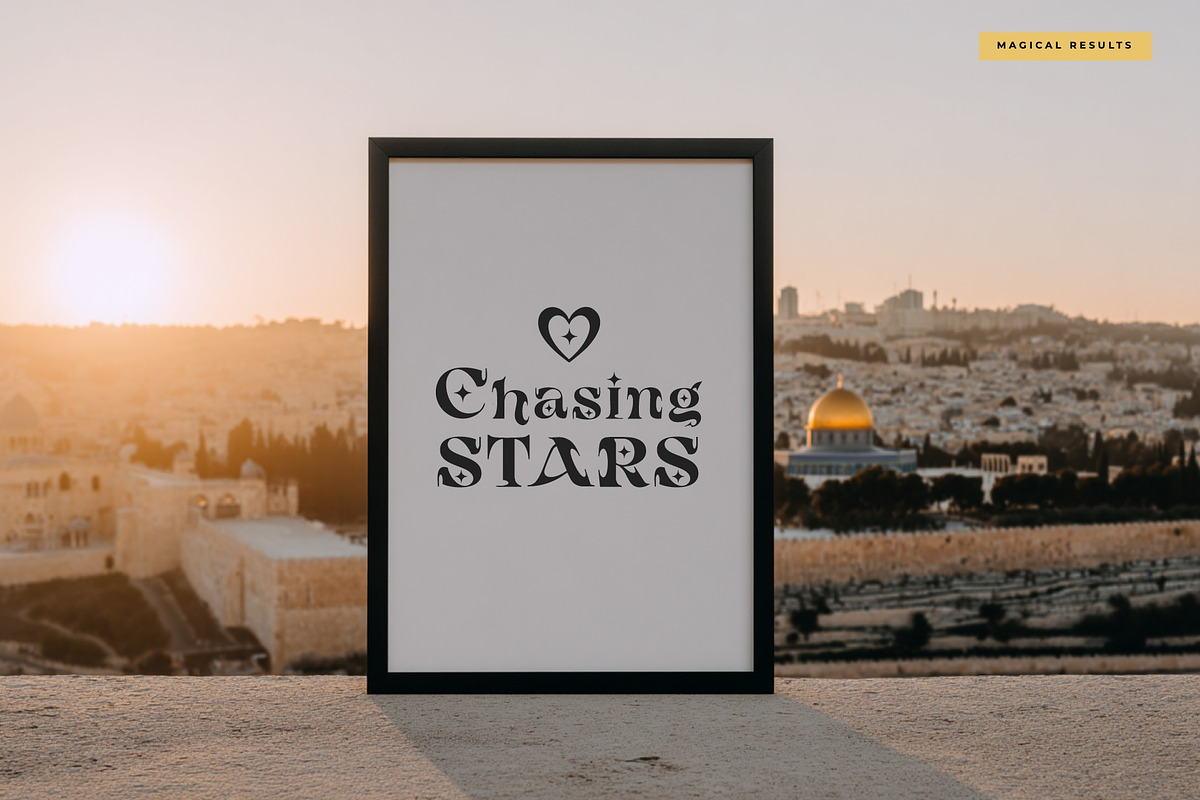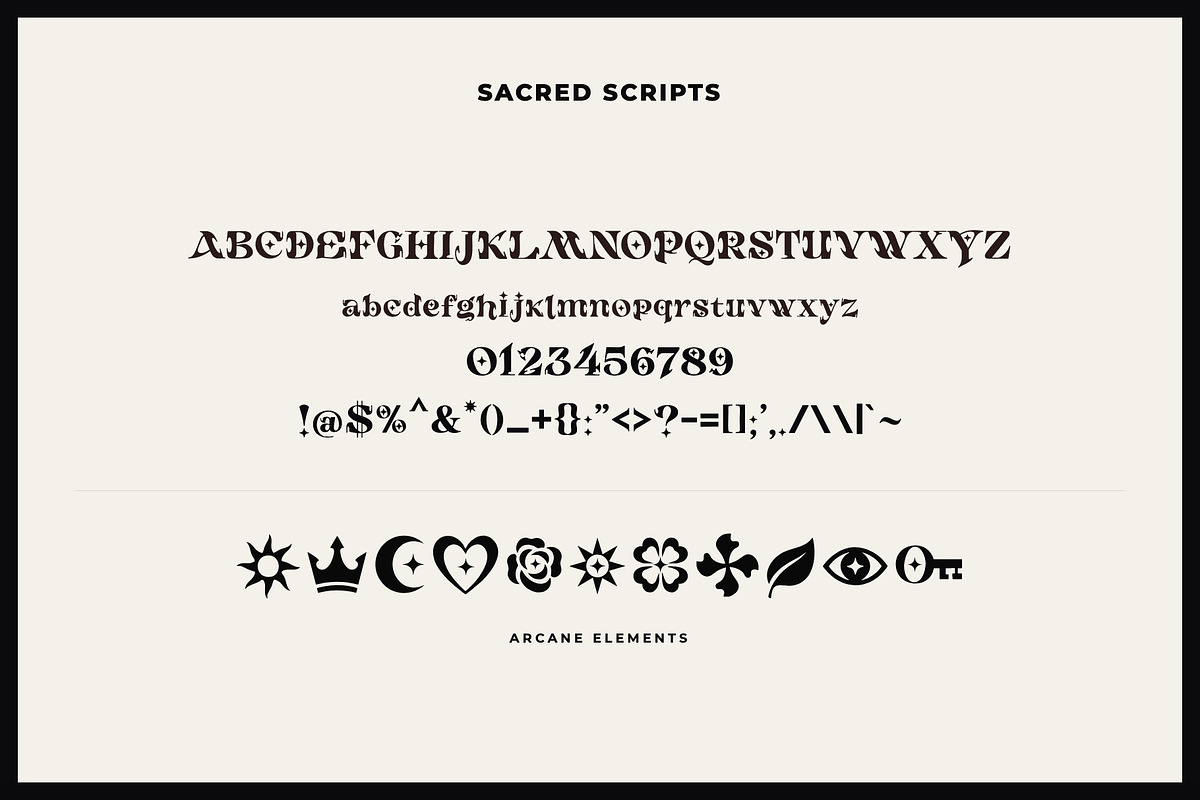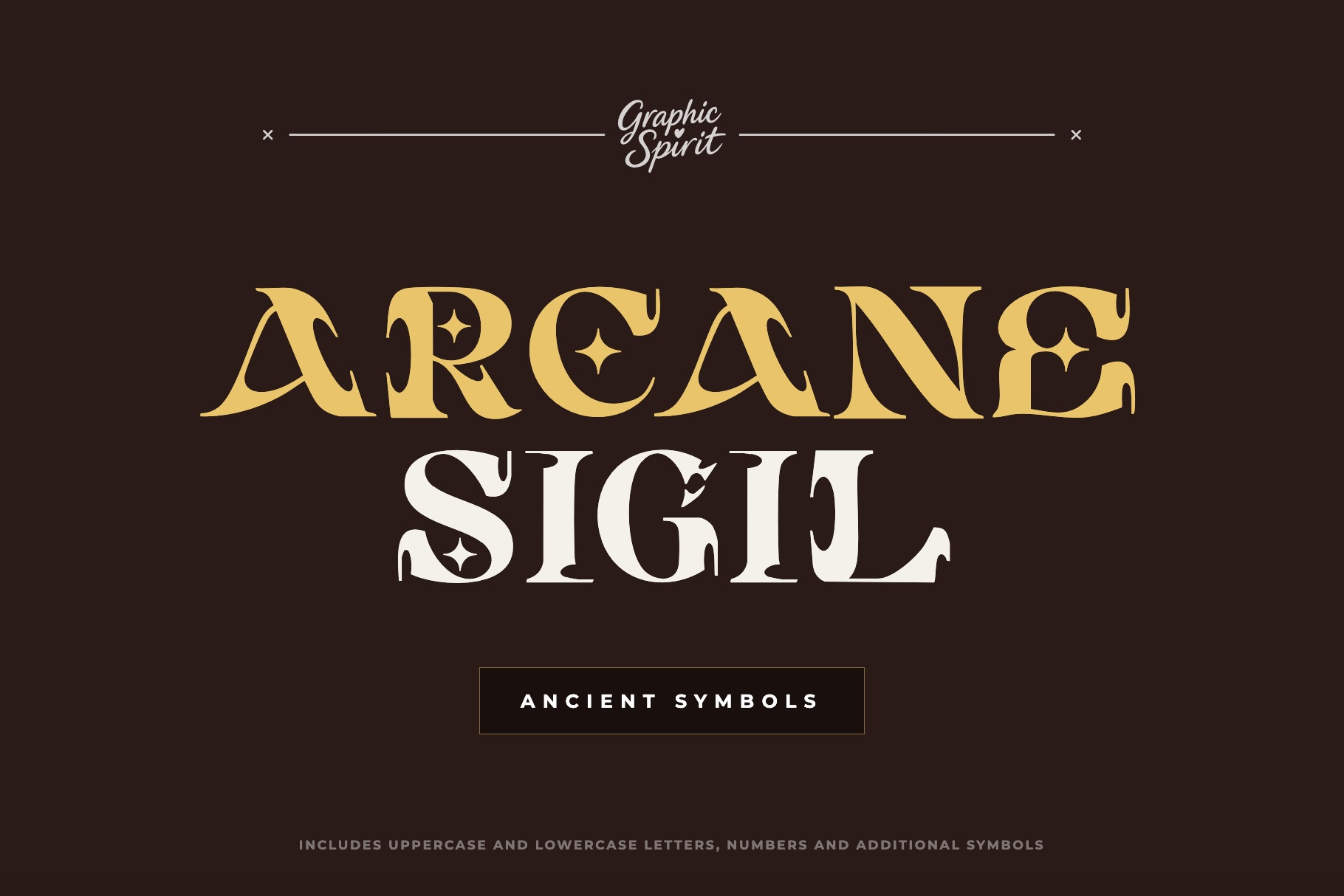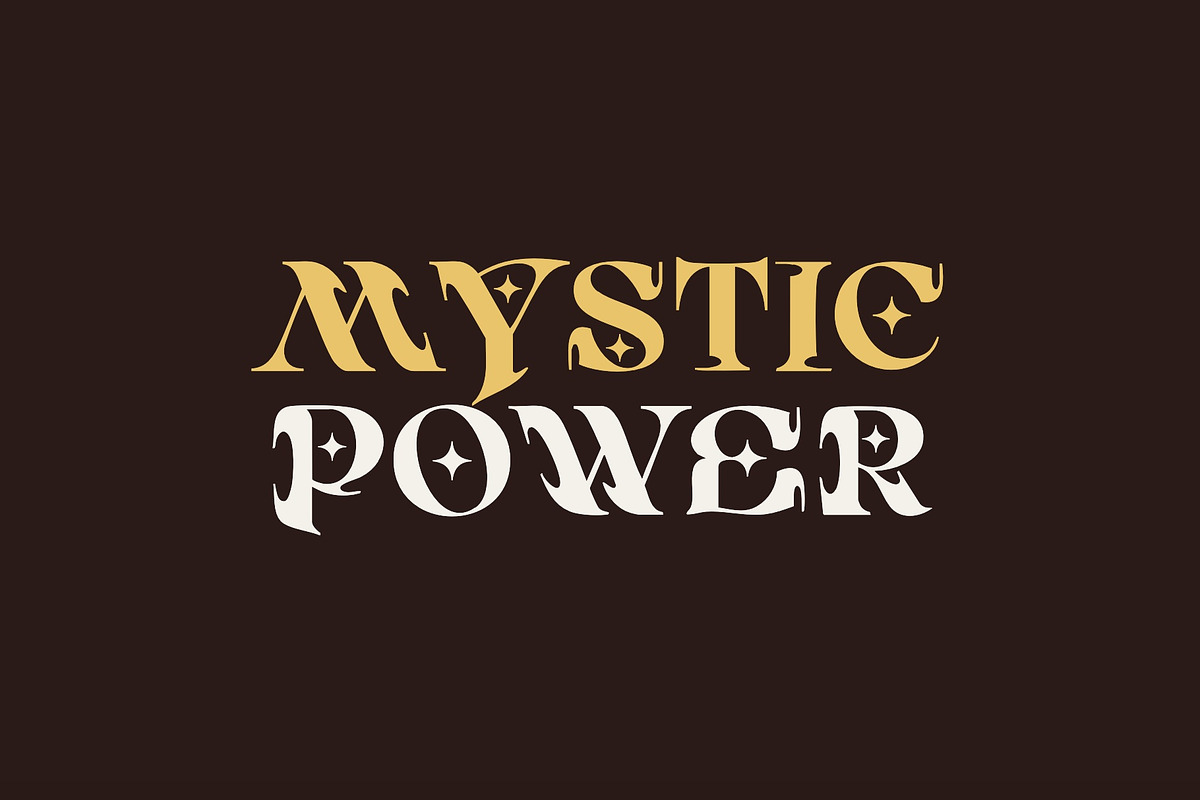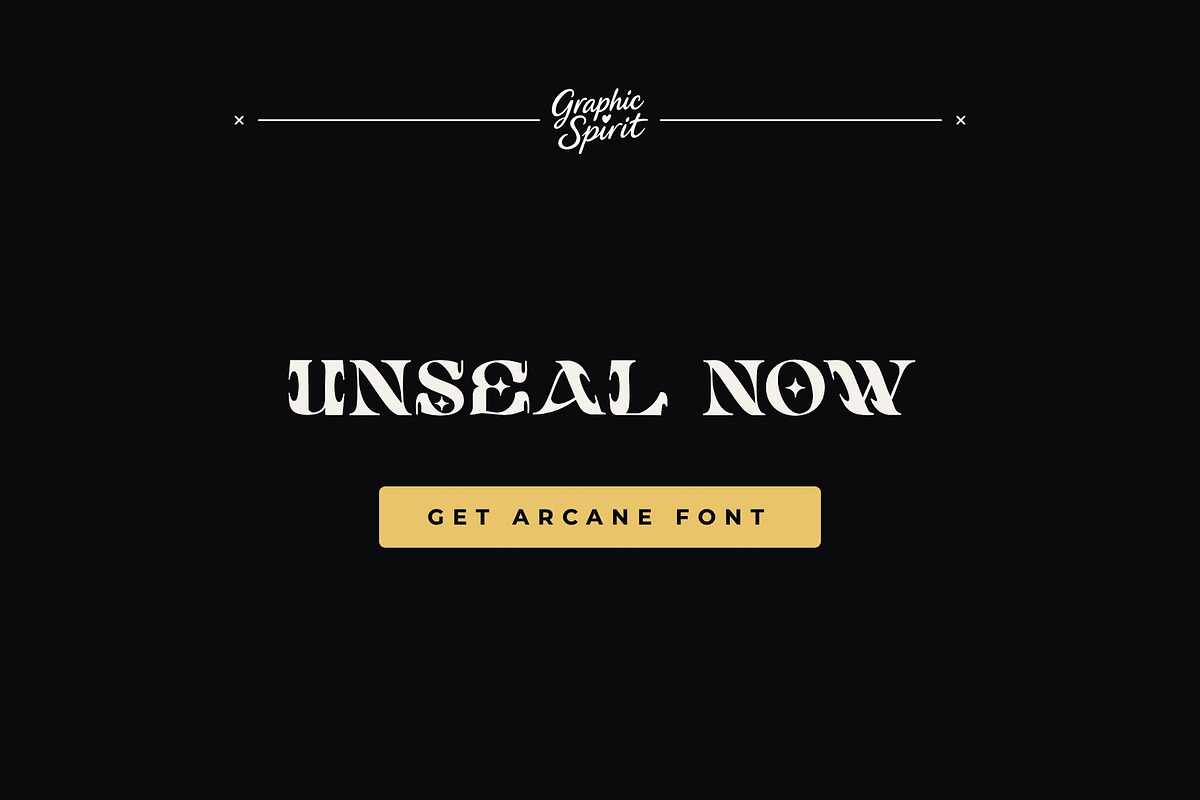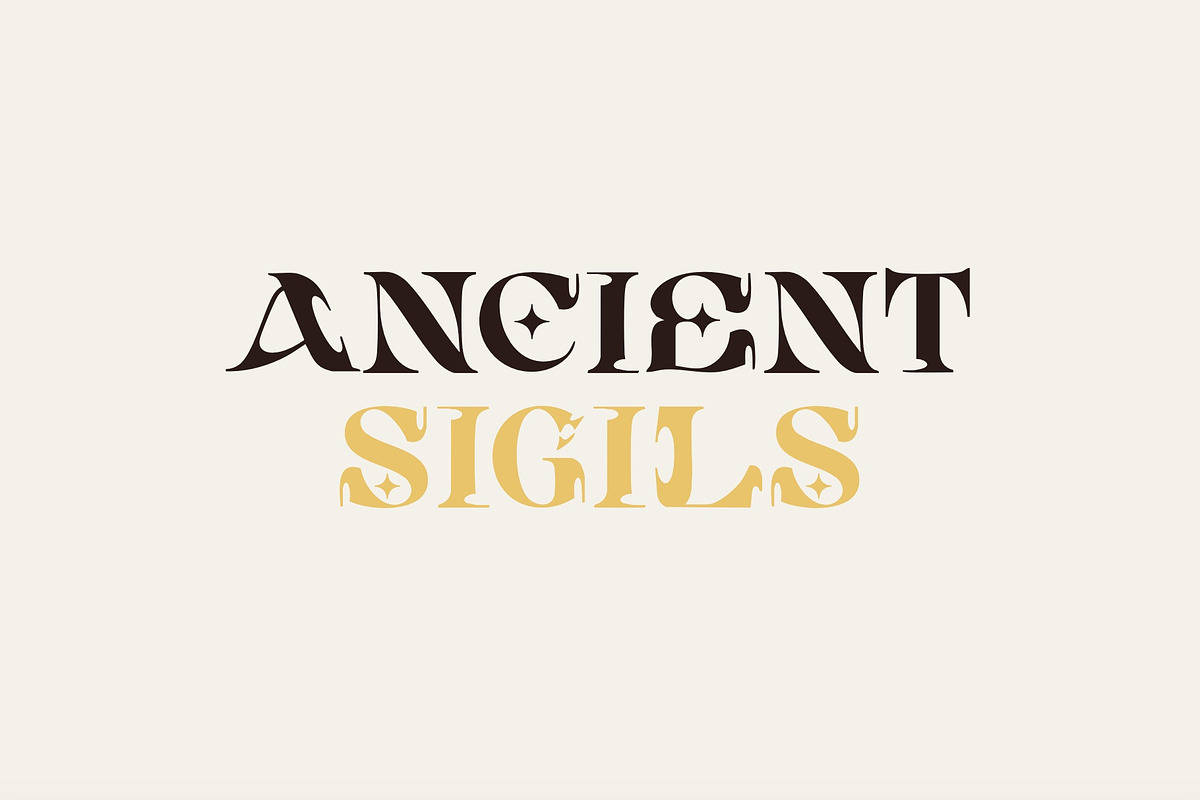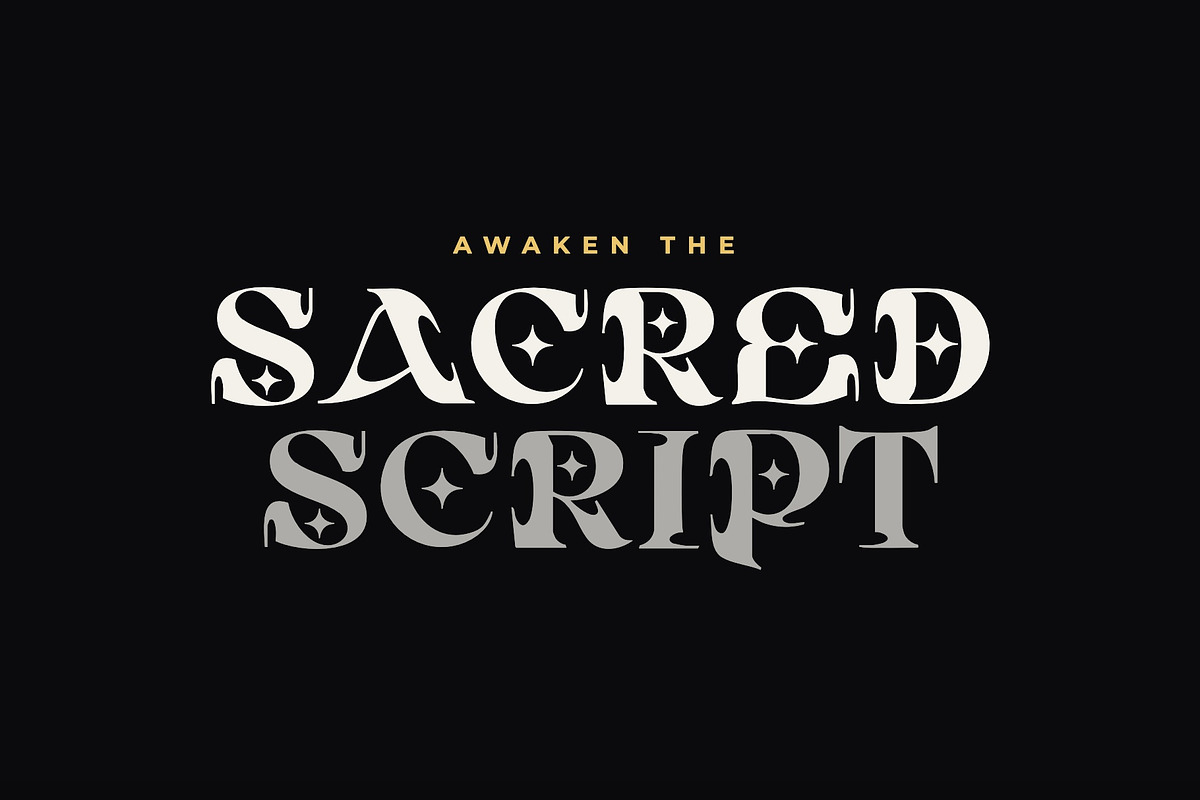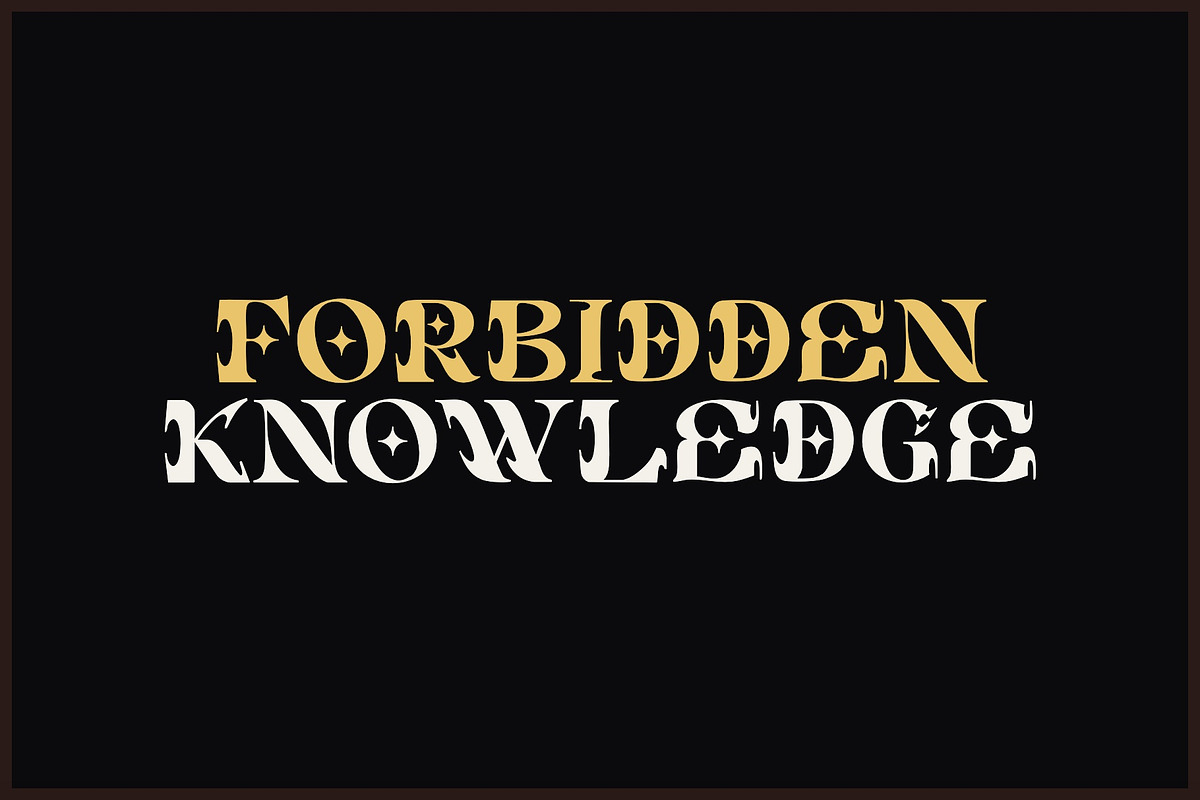
Arcane Sigil Decorative Font
Arcane Sigil is a mystical and ancient magic-inspired font that brings an occult storytelling vibe to modern design projects. As a digital download, it offers cryptic symbol-like forms and a magical aesthetic, ideal for designers seeking an esoteric and impactful look for their branding or mystery work. The typeface's ritualistic construction and mysterious lines ensure a powerful presence in any creative layout.
Designed for impact and mystical energy, Arcane Sigil is perfect for everything from occult logos to enchanting social media graphics. Its state-of-the-art design includes symbolic geometric elements that allow you to customize your typography with a truly bespoke feel. Elevate your creative toolkit with this versatile font that balances ancient wisdom with the power of mystical storytelling for impactful results.